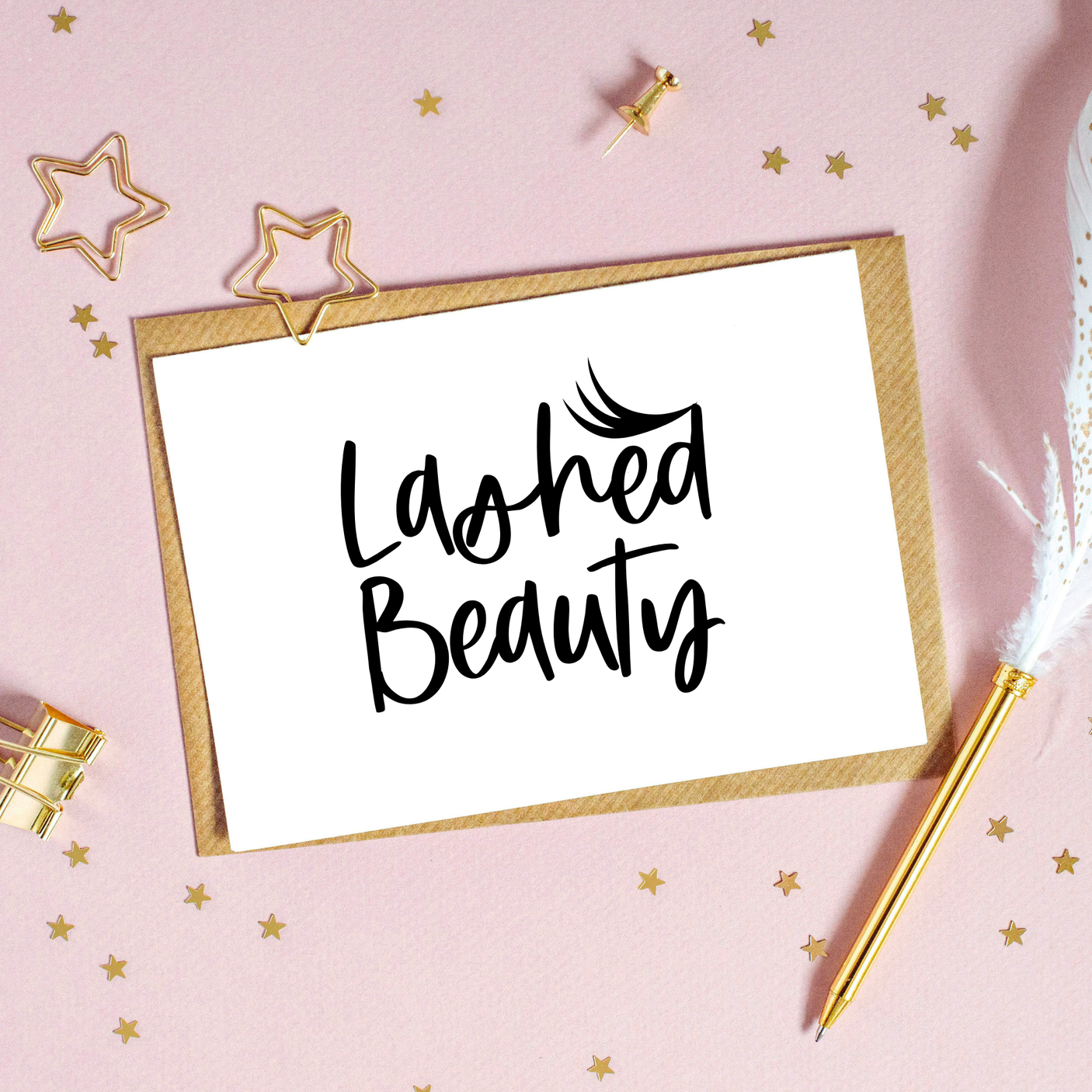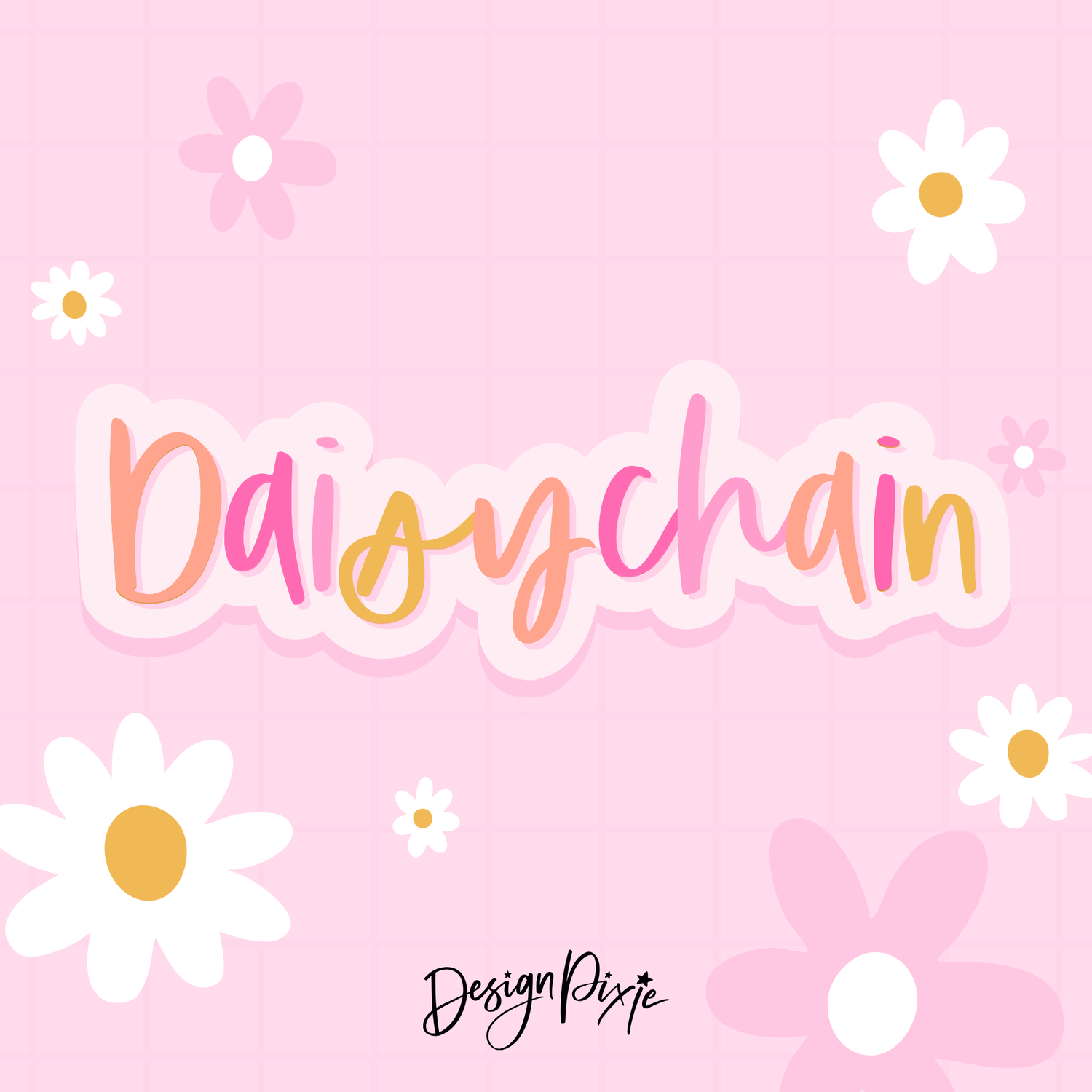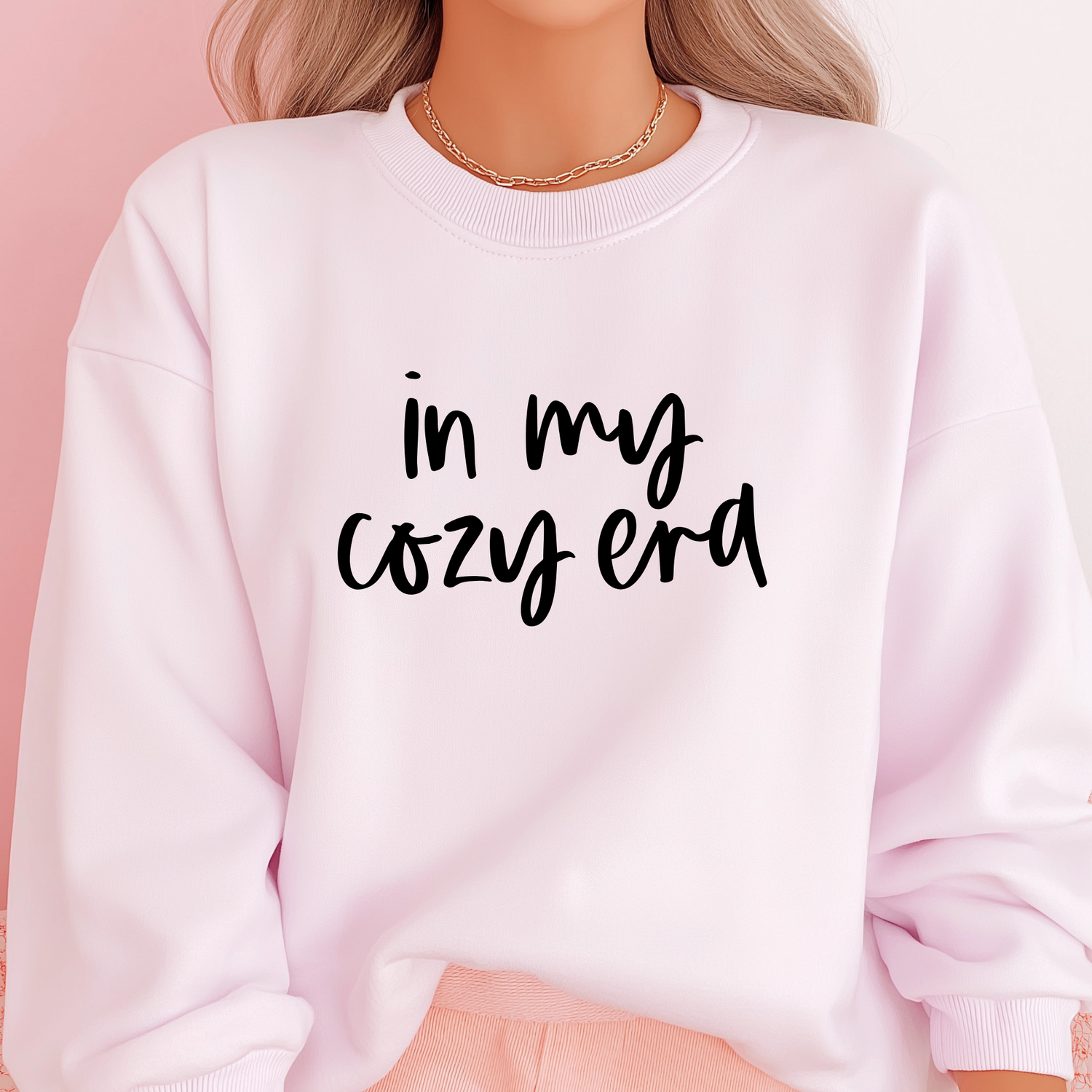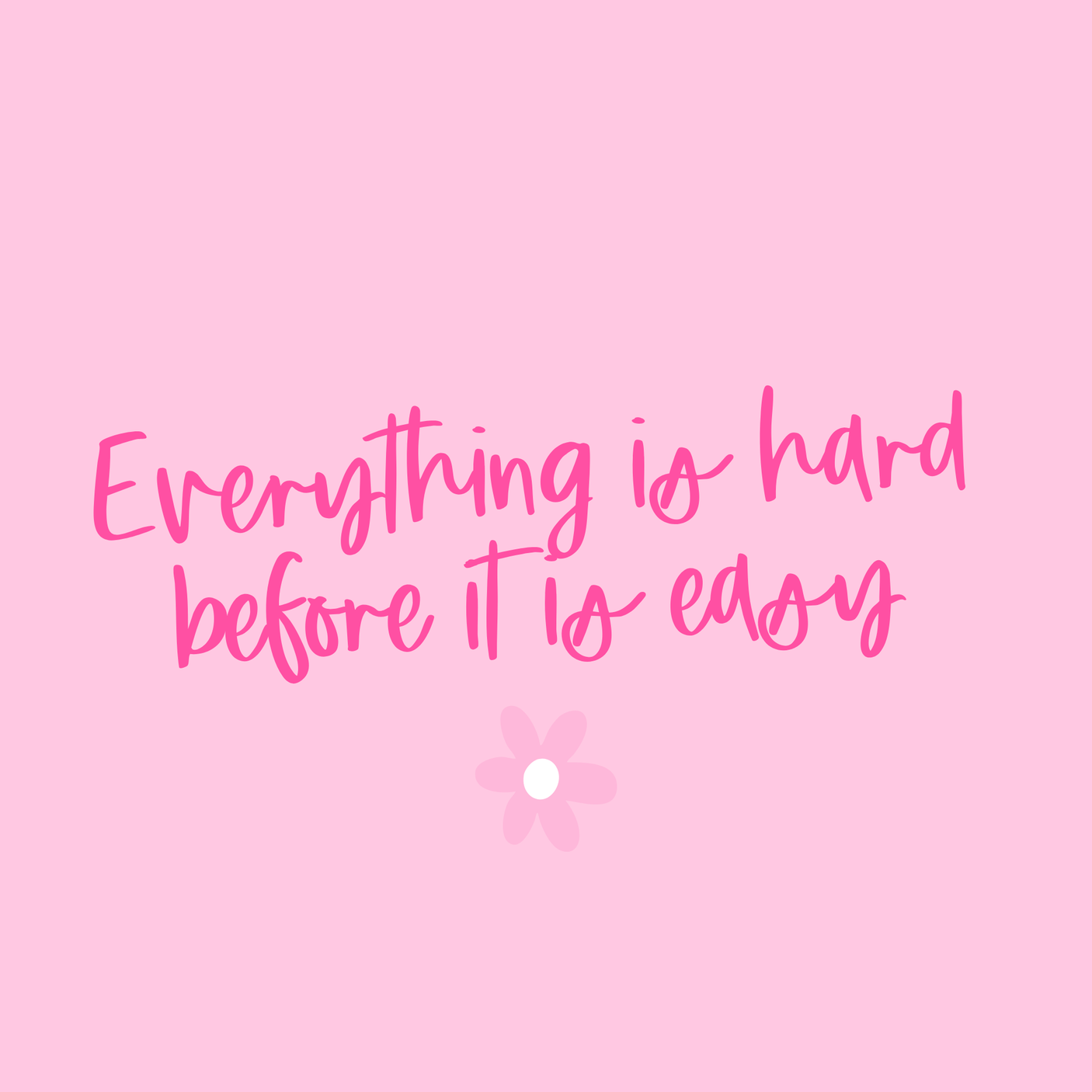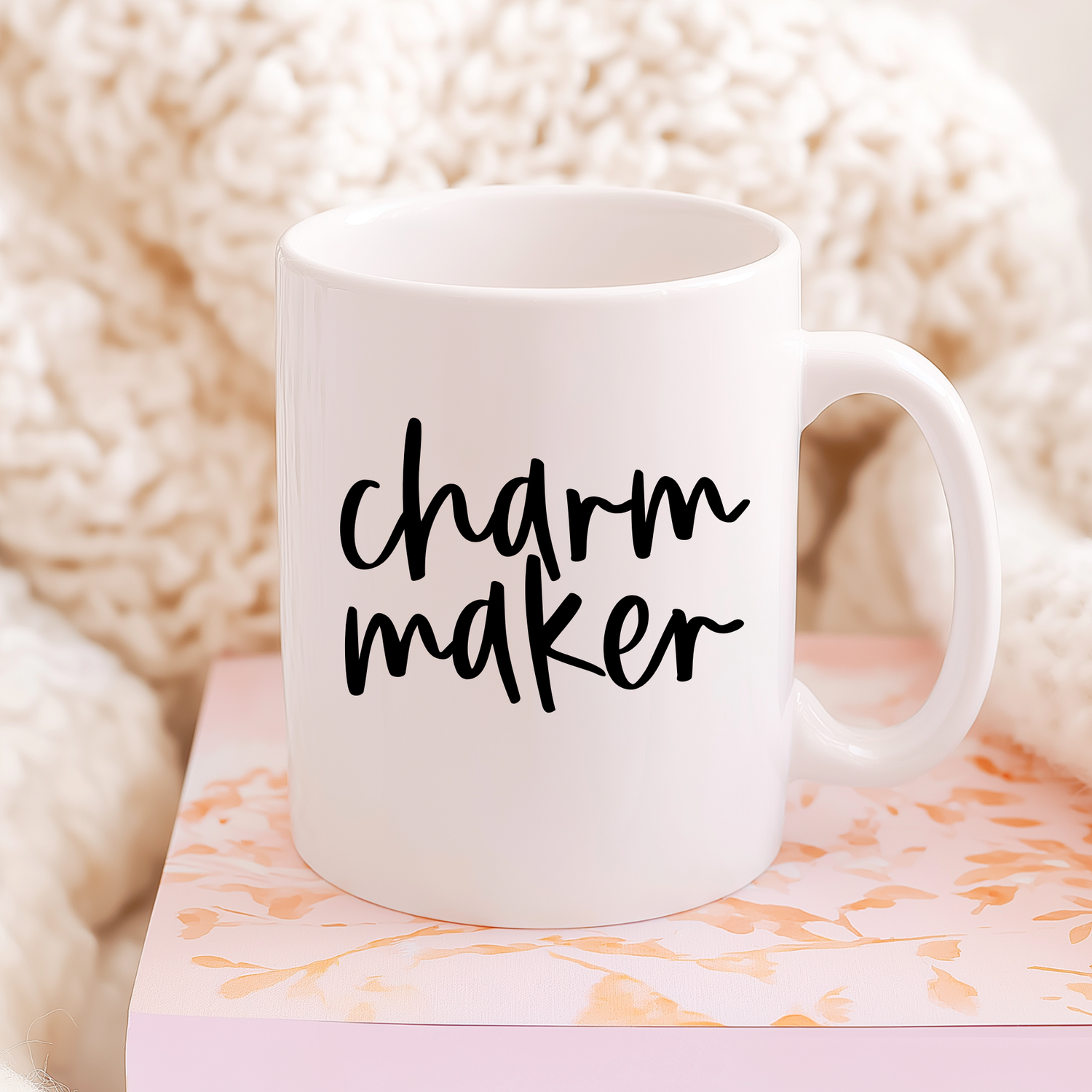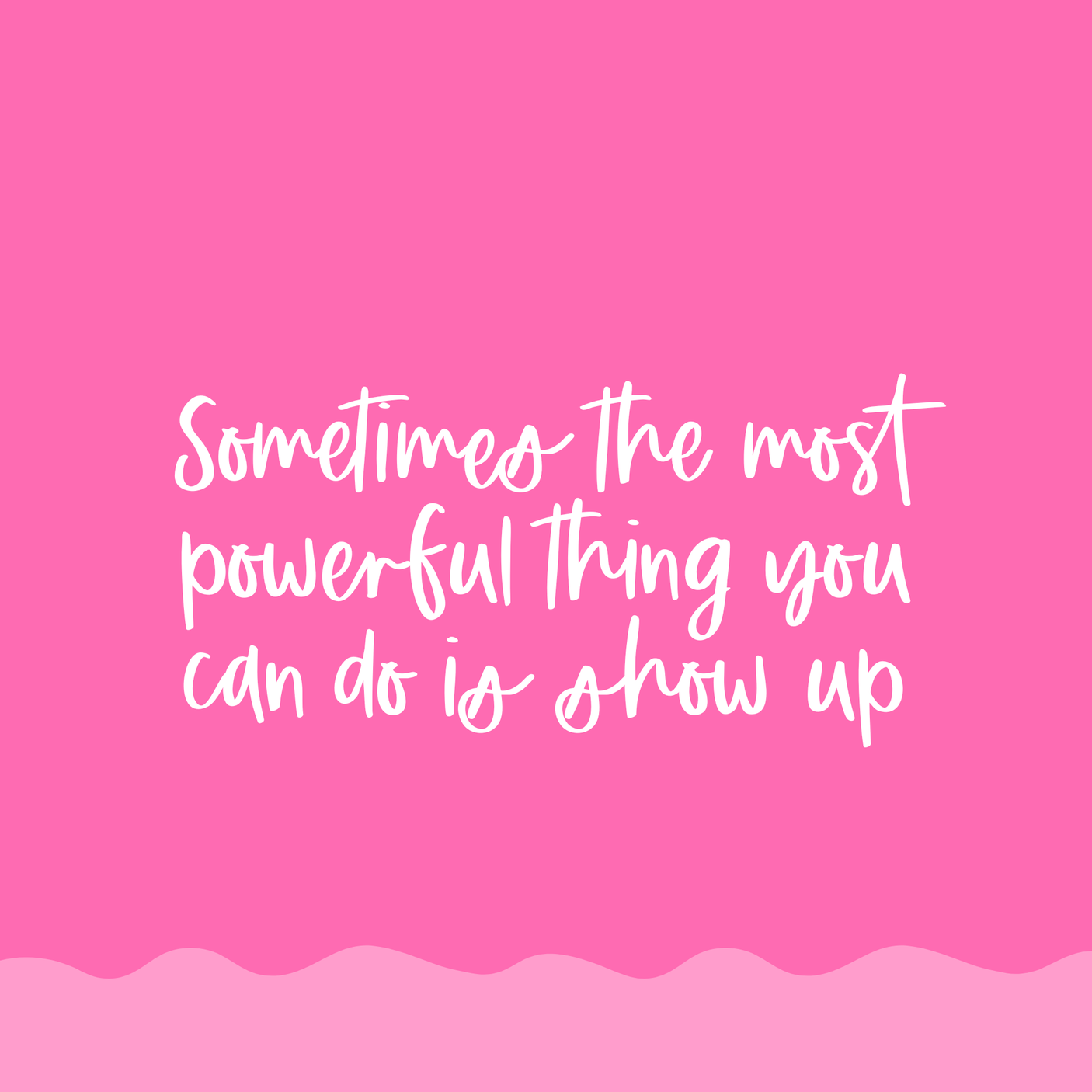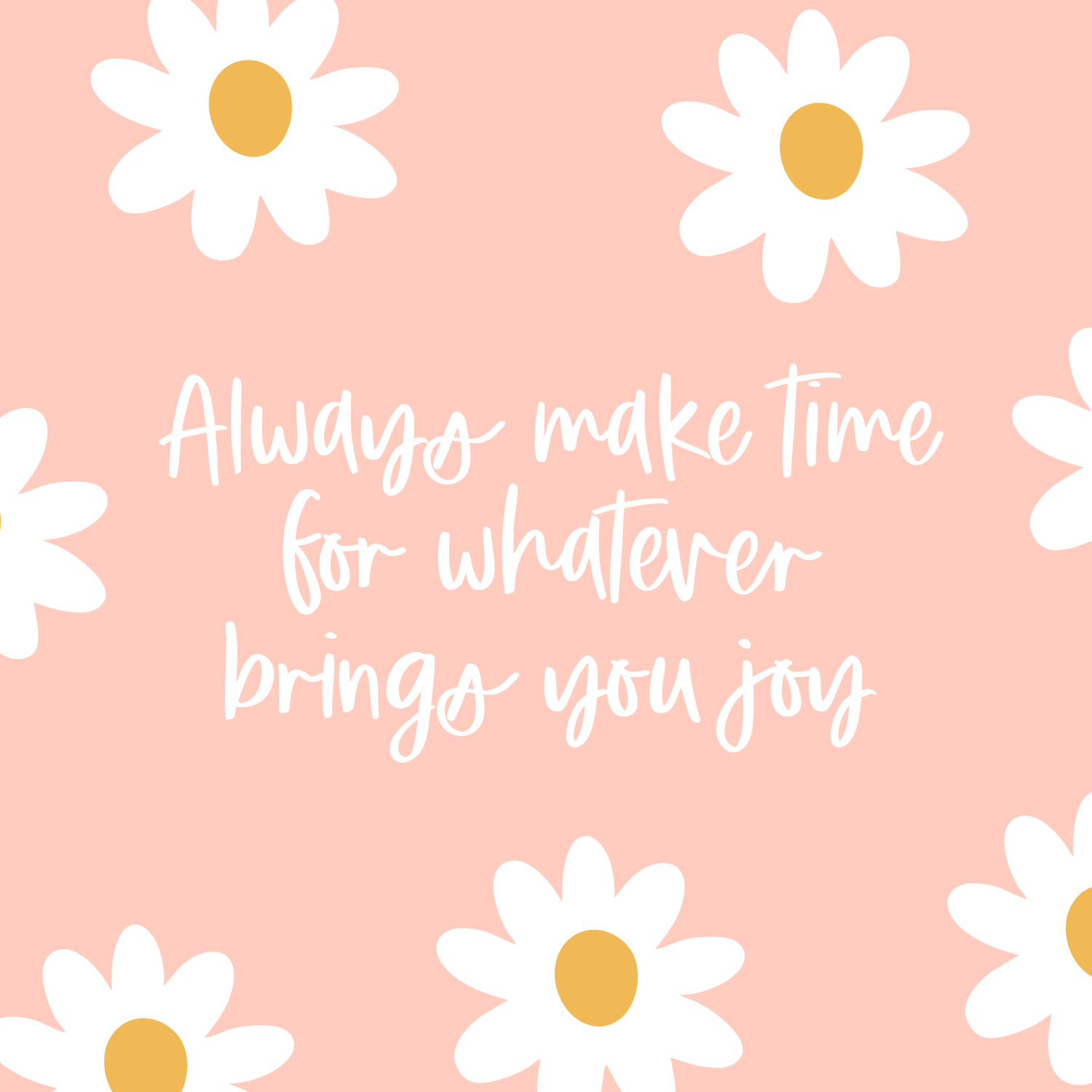
Daisychain Font
Meet Daisychain, your new favourite perfectly-imperfect handwritten script. With its slightly messy strokes and organic, realistic letter shapes, Daisychain gives your designs that true hand-lettered feel. It’s soft, sweet, and full of personality, just like writing with your favourite gel pen on a cosy afternoon.
This font is perfect for lettering quotes, tiny handwritten snippets, product labels, stickers, shirts, cards, and anything that needs that authentic, handwritten charm. Daisychain looks especially adorable on cute words, small notes, and cozy product mockups.
Why You’ll Love Daisychain
- Slightly messy, natural handwritten script
- Realistic pen-drawn lettering style
- Great for cosy notes, cute words, quotes, and product labels
- Perfect for stickers, shirts, cards, packaging, and digital designs